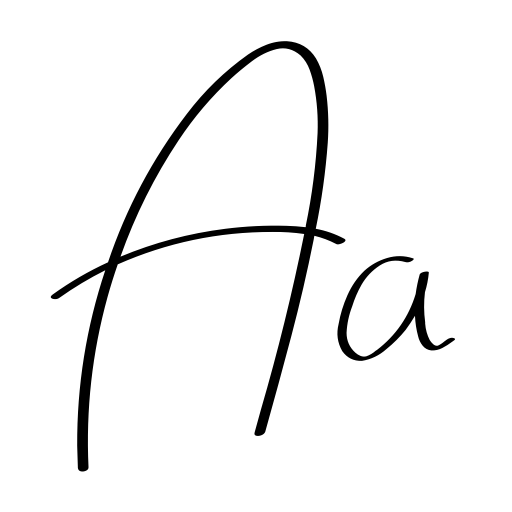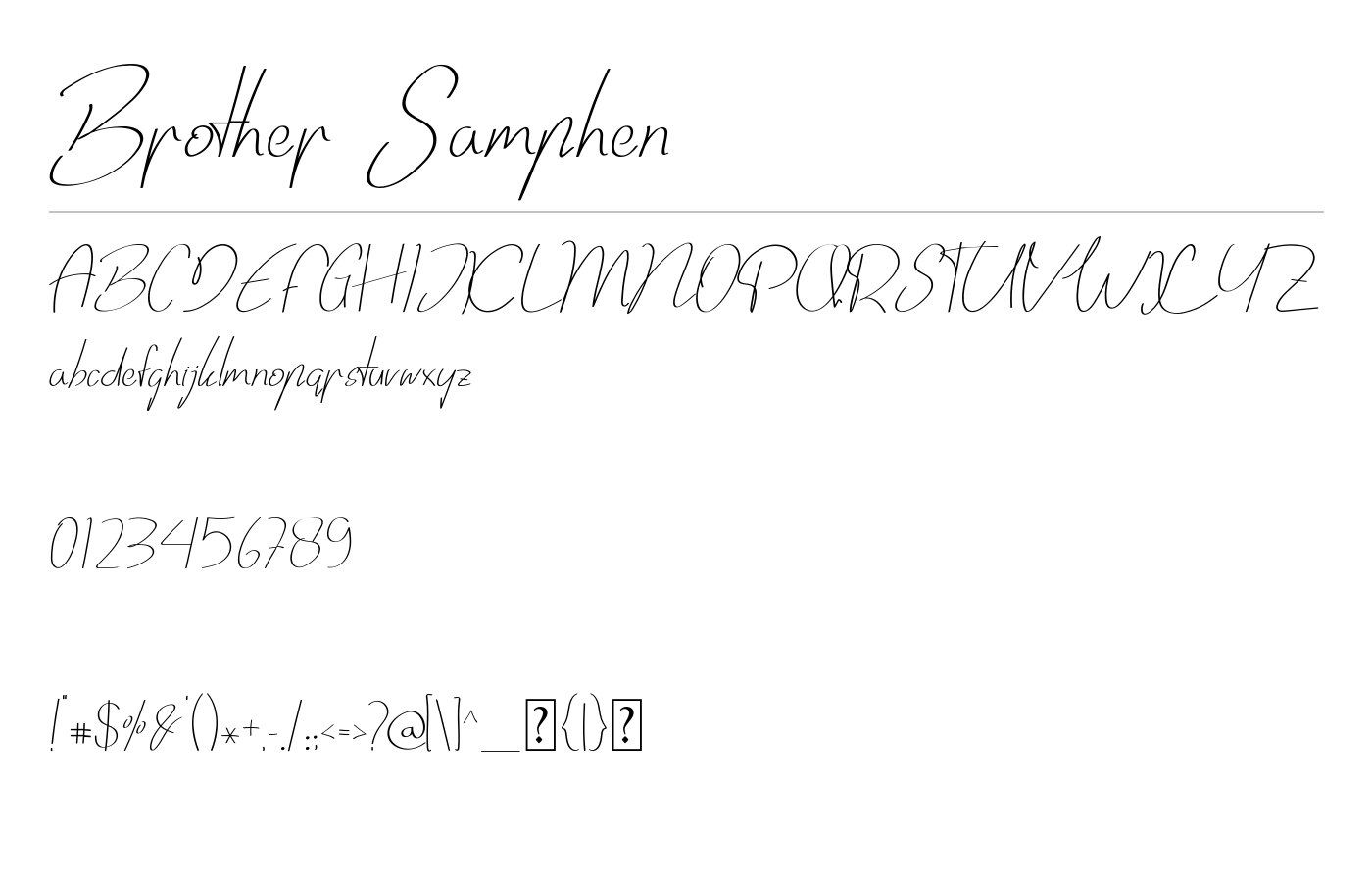
Brother Samphen is a delicate, hand-drawn script font with elegant, tall, and slender letterforms. Its fine, flowing strokes create a sophisticated yet approachable feel, making it perfect for personal branding, invitations, and creative projects that seek a stylish, intimate touch. This font works best in headlines or decorative text where its graceful personality can truly shine.
Brother Samphen Font
About Brother Samphen Font